21 Best Script Fonts for Branding & Weddings: Your 2026 Luxury Typography Guide
The Power of the First Impression
In the world of design, a font is more than just a set of characters—it’s a visual handshake. When it comes to Script and Calligraphy fonts, that handshake becomes a personal connection. Whether you’re designing a luxury wedding suite, a boutique brand identity, or a viral Pinterest pin, the right script adds a layer of soul and sophistication that standard typefaces simply can’t reach.
In this guide, we’ve curated a collection of trending scripts that define modern elegance for 2026. From breezy, sun-drenched strokes to bold, mysterious signatures, these are the tools you need to turn simple text into a high-end statement.
Expert Insight: Why Scripts Are Your Secret Branding Weapon
As a digital creator, I’ve seen how a single font choice can make or break a conversion. But why do Script Fonts consistently outperform others in high-end niches? Here’s the expert take:
- Emotional Resonance: Unlike rigid sans-serifs, scripts mimic the human hand. This creates an immediate sense of trust and “bespoke” quality. In an era of AI-generated content, the “human touch” of a handwritten font is more valuable than ever.
- The “Signature” Effect: A script acts as a brand’s signature. It’s what makes a logo feel exclusive and expensive. Using a font like Solasta or Artisan Signature tells your audience that your project is premium and detail-oriented.
- Visual Rhythm: Modern scripts are designed with “fluidity” in mind. The way letters connect (ligatures) and flow (swashes) guides the eye across the design, keeping the viewer engaged longer.
My Pro Tip: Don’t just type; design. Always utilize the PUA-encoded flourishes. Adding a simple tail swash at the end of a word can be the difference between a “basic” design and a “boutique” masterpiece.
Quick Guide: 21 Script & Handwritten Fonts
| Font Name | Style / Vibe | Best Use Case | Key Feature |
| School | Whimsical & Playful | Greeting Cards, Kids’ Projects | Irresistible warmth & charm |
| Halimun | Sleek & Sophisticated | Modern Branding, Luxury Ads | Exceptional legibility at any size |
| Rustic Wedding | Authentic & Handmade | Logos, Fashion, Quotes | Special “AND” alternates |
| Sunflower | Fresh & Crafty | Letterheads, Titles | Calligraphic yet contemporary |
| Little Love | Refined & Graceful | Minimalist Design, Stationery | Clean, thin, and smooth vibe |
| Butter And Garlic | Romantic & Personal | Thank You Cards, Business Cards | Heartfelt, rhythmic flow |
| Sophia | Sweet & Neat | Shadowboxes, Positive Cards | Fresh, organized hand-drawn look |
| Saturday | Simple & Approachable | Daily Projects, Presentations | The ultimate “go-to” versatile font |
| Violyn Wedding | Elite & Timeless | Premium Packaging, Editorial | Meticulous, luxury craftsmanship |
| Elegant Wedding | Fashionable & Delicate | T-shirt Printing, Creative Goods | Posh, “runway-ready” silhouette |
| Solasta | Confident & Expressive | Signature Branding, Fashion | Perfectly balanced rhythmic flow |
| Brittany Signature | Festive & Enchanting | Holiday Projects, Gift Tags | Merry, nostalgic atmosphere |
| Wedding | Polished & Stylish | Social Media, Luxury Logos | Modern twist on classic calligraphy |
| Beautica | Flowing & Timeless | Brand Marks, Header Text | Distinctive, high-end fluidity |
| Tail | Modern & Charming | Stickers, Farmhouse Décor | Built-in start & end tail swashes |
| Artisan Signature | Airy & Luxe | Subtle Accents, Exclusive Branding | Light touch with stunning impact |
| Coconut Beach | Breezy & Tropical | Lifestyle Branding, Summer Events | Effortless, sun-drenched flow |
| Lilirose | Playful & Feminine | Beauty Branding, Lifestyle Blogs | Graceful loops and bouncy rhythm |
| Wedding Beauty | Pure Romance & Timeless | Luxury Weddings, Formal Invitations | Soft, harmonious strokes with a premium feel |
| Nightshade | Bold & Mysterious | Branding, Nightlife, Editorial | Strong, expressive strokes with a luxe edge |
| Siblings | Warm & Sincere | Family Projects, Home Decor, Greeting Cards | Natural, connected flow with a friendly soul |
1. Lilirose Script Font
When I’m looking for Script Fonts that feel both sophisticated and approachable, Lilirose is my go-to choice. It’s an elegant duo that pairs a dainty script with a clean sans serif, creating a balanced look that feels like high-end stationery.
What I love most are the sweet, delicate swashes. They add a refined touch to letterheads, titles, and wedding branding without feeling cluttered.
Because it’s PUA encoded, I can easily access all those beautiful glyphs in any software, making it a dream for versatile, crafty projects. It’s graceful, timeless, and effortlessly chic.
2. Coconut Beach Script Font
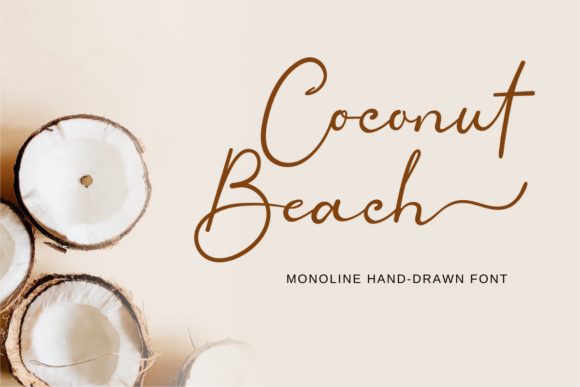
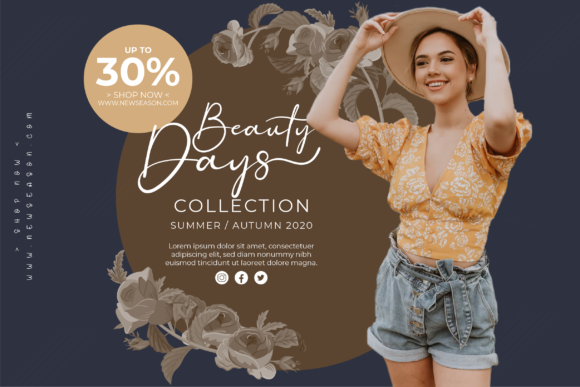
There’s something incredibly satisfying about a well-executed monoline, and Coconut Beach nails that sweet spot between timeless elegance and authentic calligraphy. When I’m browsing for Script Fonts that feel personal but professional, this one always stands out because it doesn’t try too hard—it just flows.